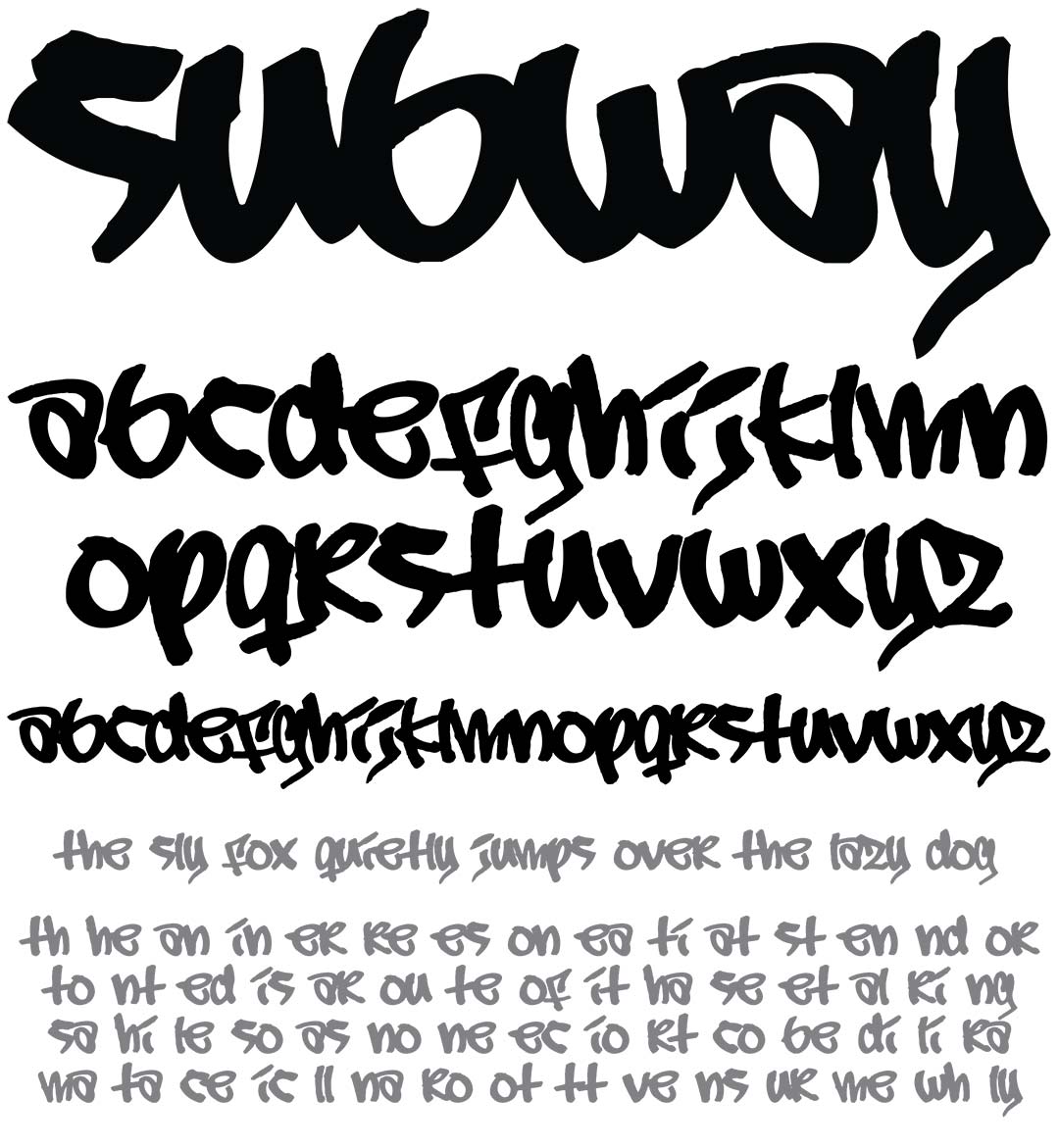
Subway
Subway Graffiti Alphabet
Subway Graffiti Font Family
Subway is a handmade tag style as written with a dull permanent marker. The letters are all lowercase. Subway is one of the earliest graffiti style fonts. It is very simple but easily identifiable as a tag style.